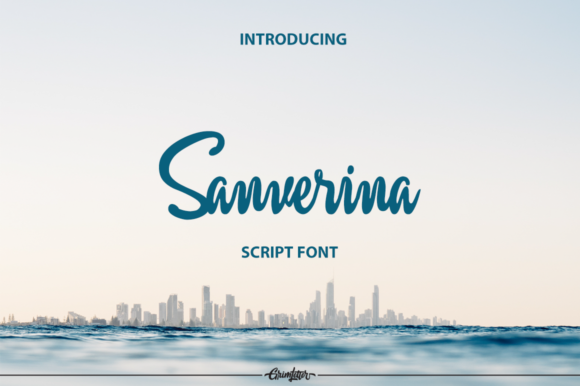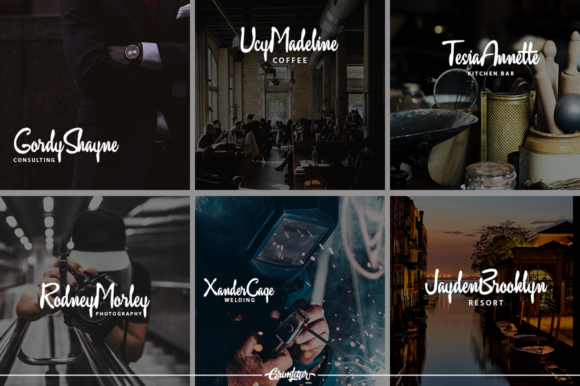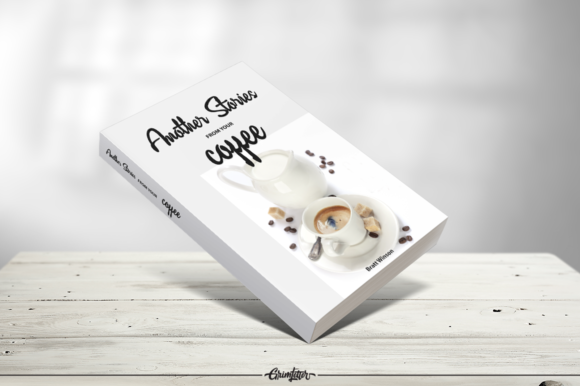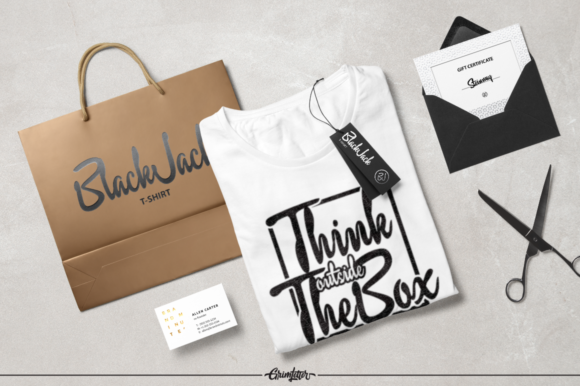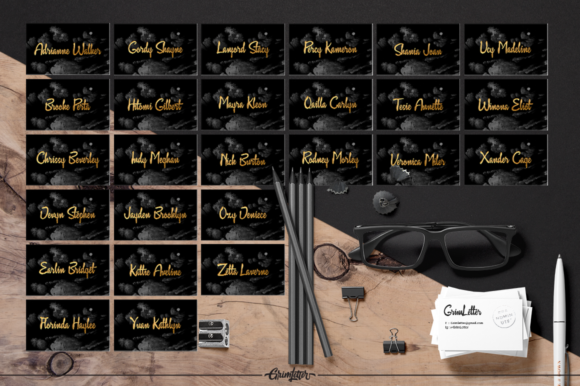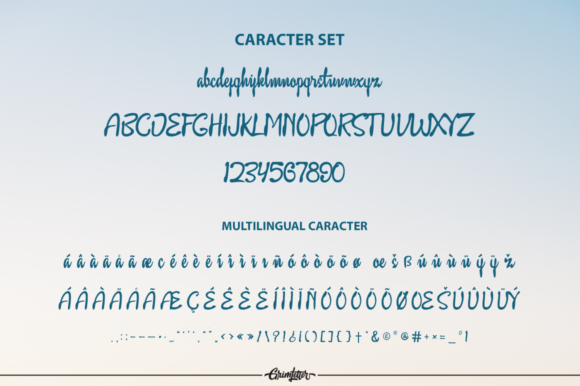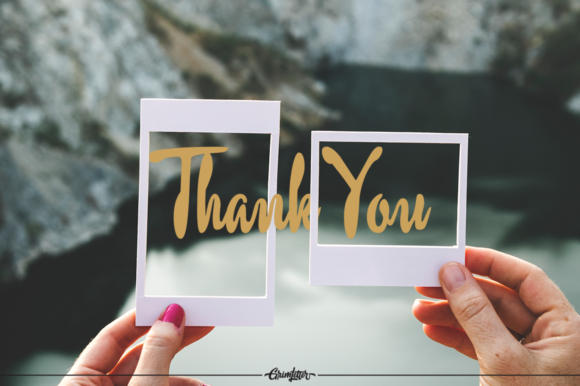
Sanverina Font
About Sanverina Font
The Sanverina is a modern script font. It’s simple and easy to use and has a good readability. Perfect for logos, badges, packaging, headlines, and much more!